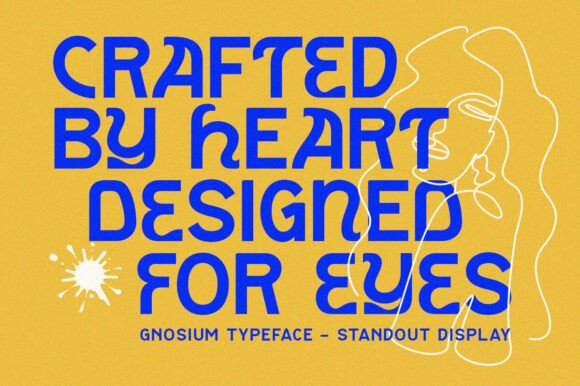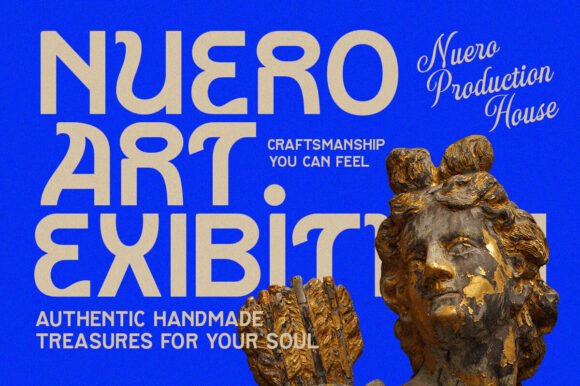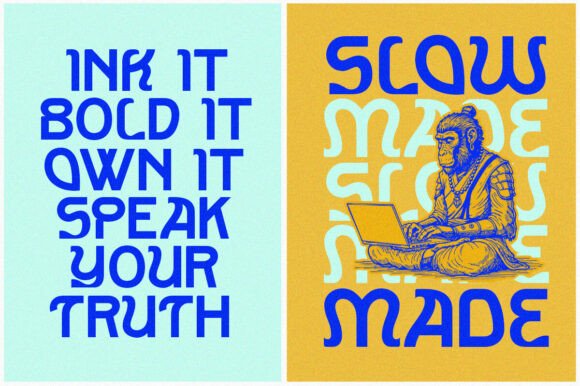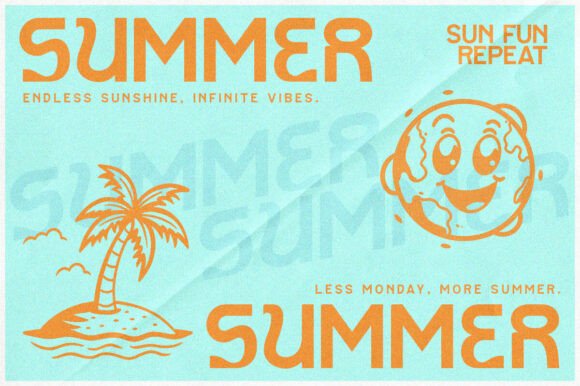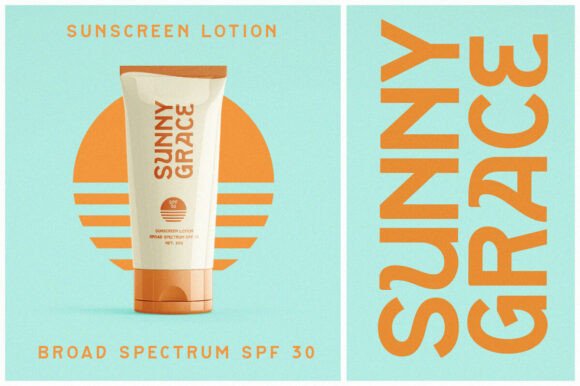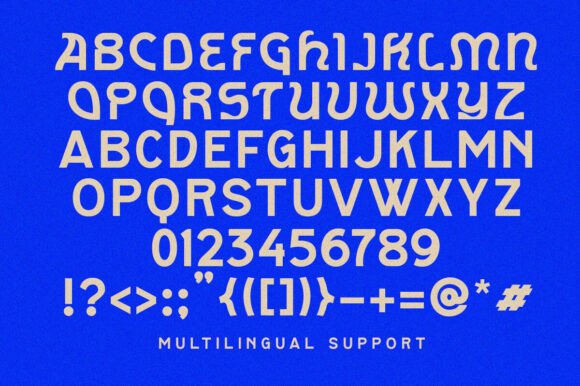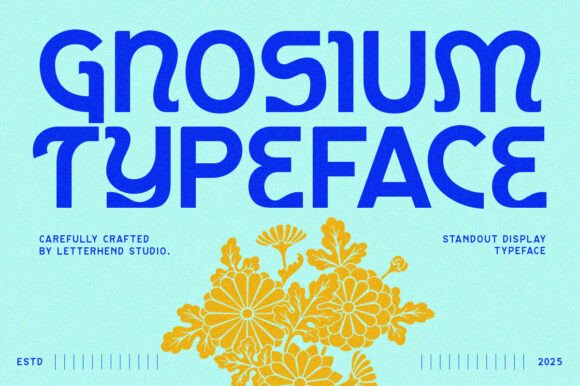
Gnosium Typeface Font: A Bold and Artistic Display Font for Modern Design
In the world of typography, a well-designed font can make all the difference in creating a lasting impression. Introducing Gnosium Typeface, a bold and artistic display font that is sure to turn heads. With its futuristic curves, geometric cuts, and playful letterforms, this typeface is perfect for designers and crafters looking to add a touch of modernity to their projects.
A Retro-Futuristic Vibe with Strong Legibility
Gnosium Typeface radiates a retro-futuristic vibe, reminiscent of classic sci-fi movies and futuristic cityscapes. However, what sets it apart is its strong legibility, making it perfect for use in a variety of applications, from modern branding to editorial headlines. Each glyph is carefully crafted to ensure that the font remains clear and readable, even at smaller sizes.
Perfect for Creative Visual Projects
Whether you’re working on a poster, a magazine editorial, or a creative visual project, Gnosium Typeface is the perfect choice. Its unique character and bold design make it ideal for grabbing attention and making a statement. The font’s playful letterforms and geometric cuts add a touch of whimsy and creativity, making it perfect for designers who want to add a bit of personality to their work.
Key Features of Gnosium Typeface
- Bold and Artistic Design: Gnosium Typeface is a bold and artistic display font that is sure to make a striking impact.
- Futuristic Curves and Geometric Cuts: The font features futuristic curves and geometric cuts that give it a unique and modern look.
- Playful Letterforms: The playful letterforms add a touch of whimsy and creativity to the font, making it perfect for designers who want to add a bit of personality to their work.
- Retro-Futuristic Vibe: The font radiates a retro-futuristic vibe, reminiscent of classic sci-fi movies and futuristic cityscapes.
- Strong Legibility: Despite its bold design, Gnosium Typeface remains strongly legible, making it perfect for use in a variety of applications.
Why Choose Gnosium Typeface?
- Unique Design: Gnosium Typeface has a unique design that is sure to make your project stand out from the crowd.
- Versatility: The font is versatile and can be used in a variety of applications, from modern branding to editorial headlines.
- Easy to Read: Despite its bold design, Gnosium Typeface is easy to read, making it perfect for use in body text and other applications where legibility is important.
Tips for Using Gnosium Typeface
- Use it as a Headline Font: Gnosium Typeface is perfect for use as a headline font, where its bold design and playful letterforms can really make an impact.
- Pair it with a Serif Font: For body text, consider pairing Gnosium Typeface with a serif font to create a nice contrast between the two.
- Use it in Branding: Gnosium Typeface is perfect for use in branding, where its unique design and bold personality can help to create a lasting impression.
In conclusion, Gnosium Typeface is a bold and artistic display font that is sure to make a striking impact. With its futuristic curves, geometric cuts, and playful letterforms, this typeface is perfect for modern branding, posters, editorial headlines, and creative visual projects. Its retro-futuristic vibe and strong legibility make it a versatile font that can be used in a variety of applications. So why not give Gnosium Typeface a try on your next project and see the difference it can make?